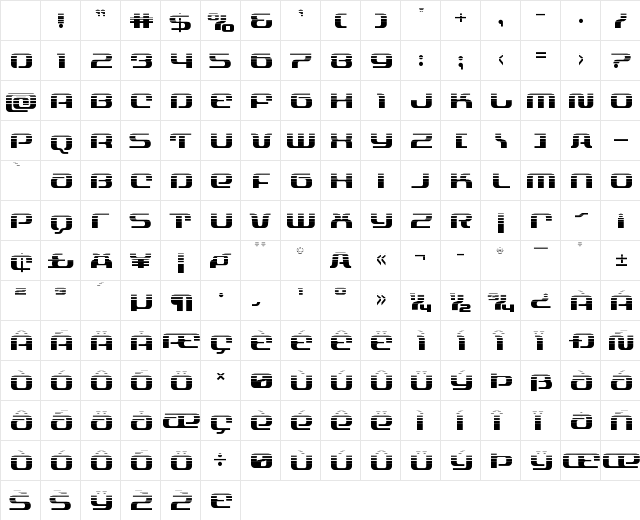
Complete Yeoman Jack Halftone Regular glyph index. Displaying only characters natively supported by Yeoman Jack Halftone Regular font.
Yeoman Jack Halftone is a composed and adaptable typeface that performs quietly and consistently across a wide range of design contexts.